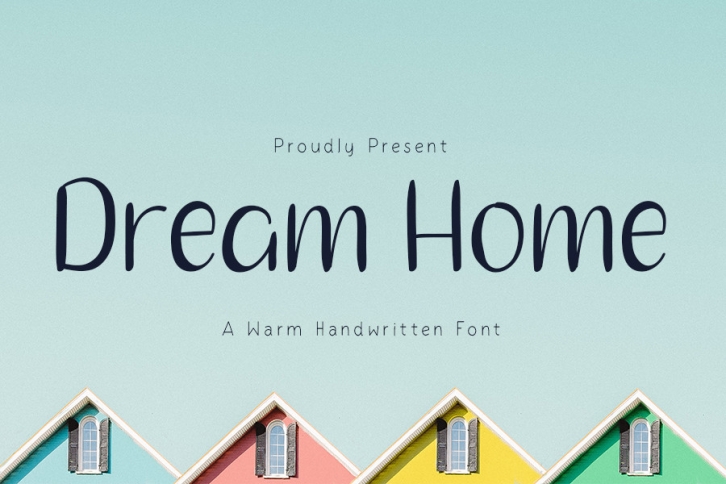
DreamHome is a simple and neat handwritten font. It has very adaptable and well-balanced characters, so add it to your fonts’ library, and DreamHome will become a go-to choice. Suitable for Wedding invitations, Greetings Card, T-shirts, and more.
It matches any design project you wish to create!